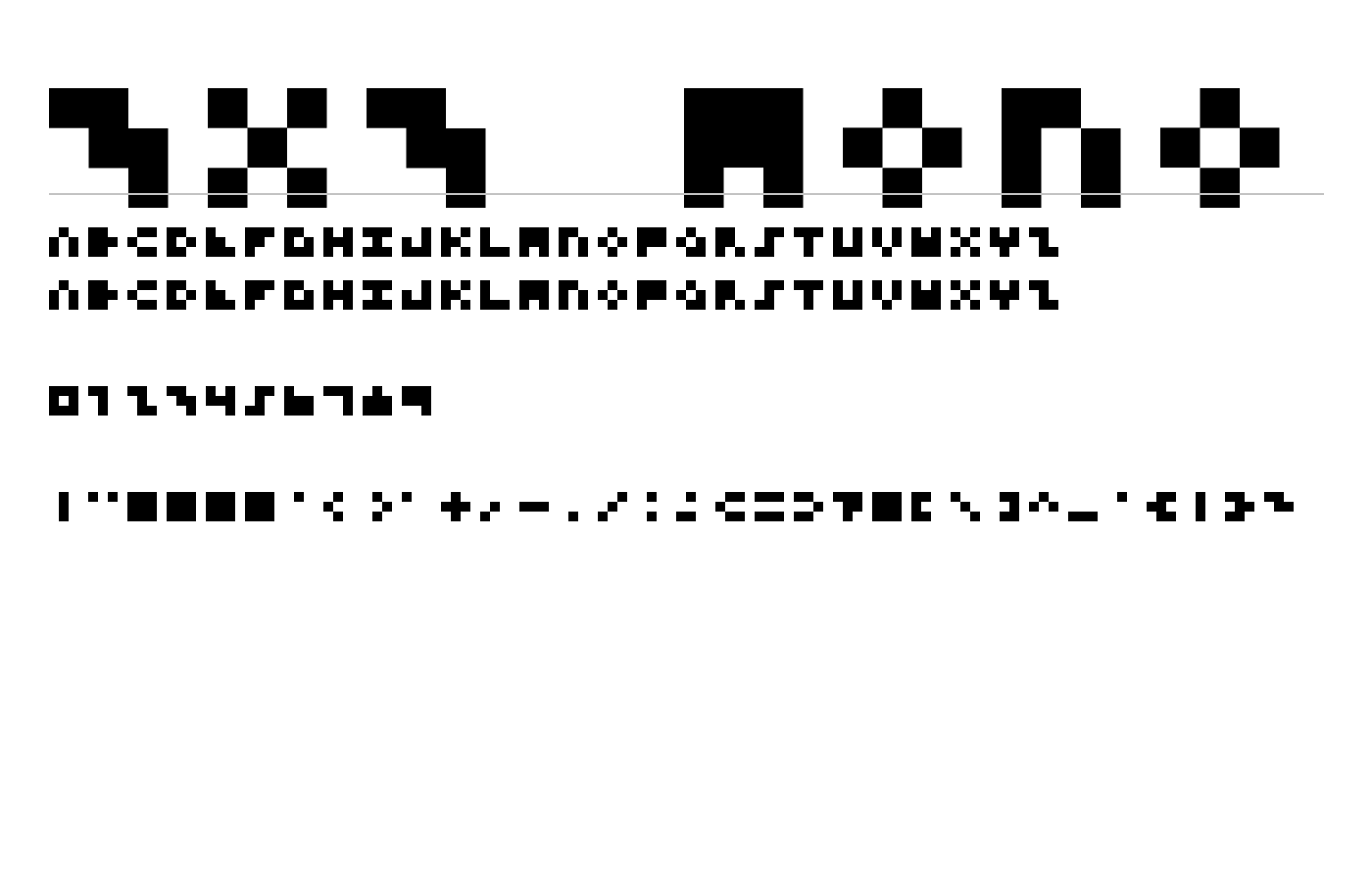
3x3 Mono Font is a pixelated, monospaced typeface with a distinctly retro, digital feel reminiscent of early computer and video game text. Its blocky, square letterforms with uniform width and height create a highly legible, technical appearance suited for projects that embrace a minimalist, vintage tech, or cyber aesthetic. This font works best in digital interfaces, coding environments, and creative designs aiming to evoke nostalgia or pixel art style.
3x3 Mono Font
About 3x3 Mono Font
| Font family | 3x3 Mono Font |
| Designer | GGBotNet |